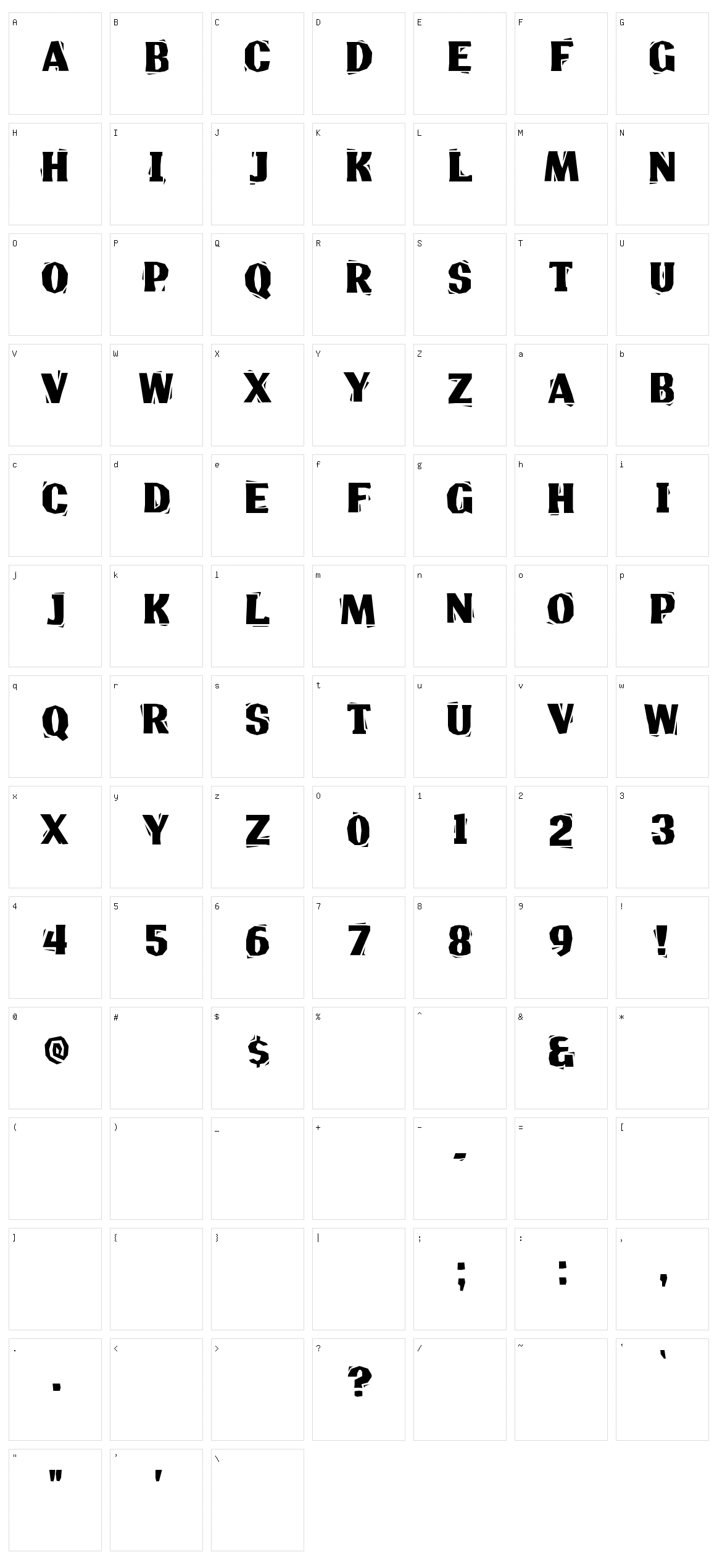
The free font Lino Chisel is carefully designed by Vic Fieger, showcasing a thoughtful balance of creativity and usability and falls under the Distorted font style. When you download the ZIP file, it contains only 10.81 KB of font files, making it lightweight and quick to download. Please review the license details below to understand permitted usage and distribution rights. If license information is not available, we recommend using this font for personal projects only or contacting the author directly for commercial usage permissions.